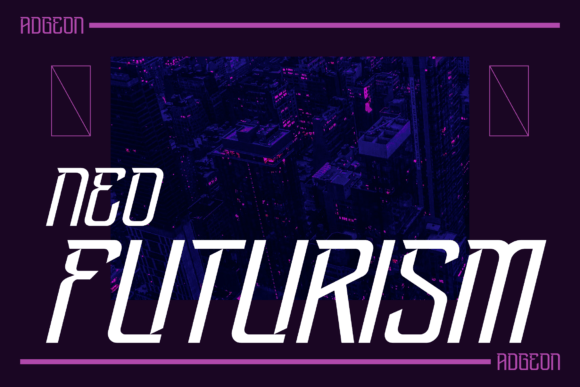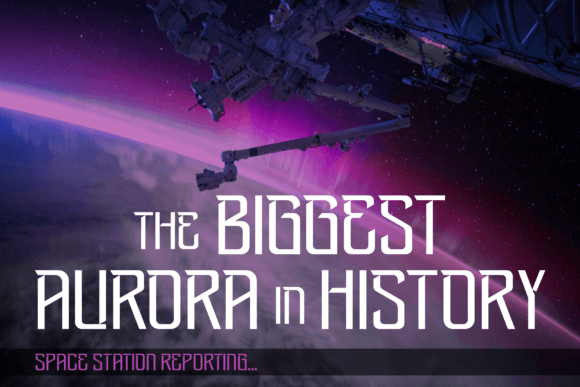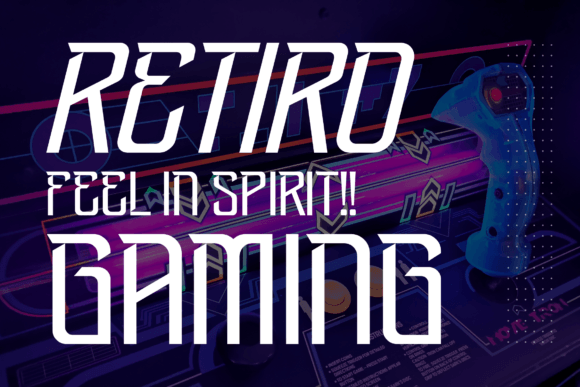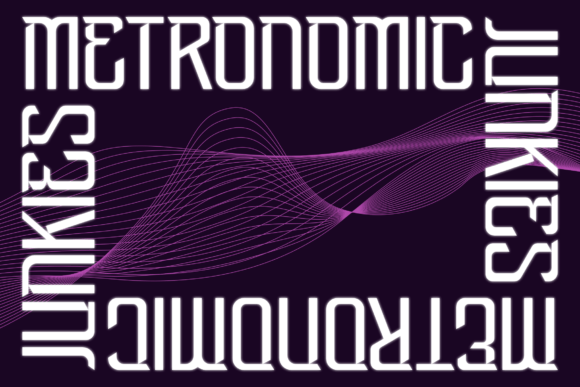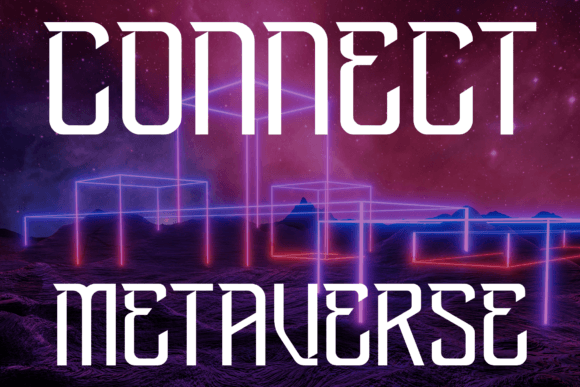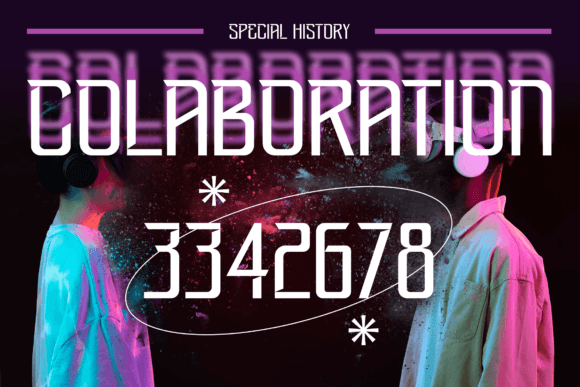
Introducing Adgeon Font: The Perfect Blend of Classic and Modern Elegance
I’ll never forget the moment I stumbled upon the perfect font for a client’s luxury brand project. I had been searching for what felt like an eternity, trying out font after font, but nothing seemed to capture the essence of elegance and sophistication that the client was looking for. That was until I discovered Adgeon Font – a game-changing, modern display font that instantly elevated my design to new heights.
A Personal Review of Adgeon Font
What I Love About Adgeon Font ✨
- ✅ Unique and distinctive style that’s perfect for luxury brands, fashion designs, and high-end projects
- ✅ Elegant and refined, yet modern and edgy – a perfect blend of classic and contemporary design
- ✅ Highly versatile and adaptable, suitable for a wide range of applications, from logos and titles to quotes and lettering
- ✅ Beautifully crafted with attention to detail, ensuring a premium look and feel
While Adgeon Font is an exceptional typeface, there are a few minor quirks to be aware of:
- 🤔 Some users may find the font’s uniqueness takes getting used to, especially when compared to more traditional serif or sans-serif fonts
- ⚠️ As with any display font, Adgeon may not be the best choice for body text or long-form content, where readability is paramount
- Experiment with OpenType features, such as ligatures and stylistic alternates, to add an extra layer of sophistication to your design
- Explore the font’s glyphs and OpenType features, such as swashes and alternates, to create stunning text effects
The Story Behind Adgeon Font
Adgeon Font was crafted with passion and dedication by a talented type designer, inspired by the world of luxury and elegance. With a keen eye for detail and a deep understanding of typography, the designer aimed to create a font that would exceed expectations and push the boundaries of modern typography.
| Font Name | Adgeon Font |
| Author | Storytype Studio |
Q: What makes Adgeon Font unique?
A: Adgeon Font boasts a distinctive style that blends classic elegance with modern sophistication, making it perfect for luxury brands and high-end projects.
Q: Is Adgeon Font suitable for body text?
A: While Adgeon Font is an exceptional display font, it may not be the best choice for body text or long-form content, where readability is crucial.